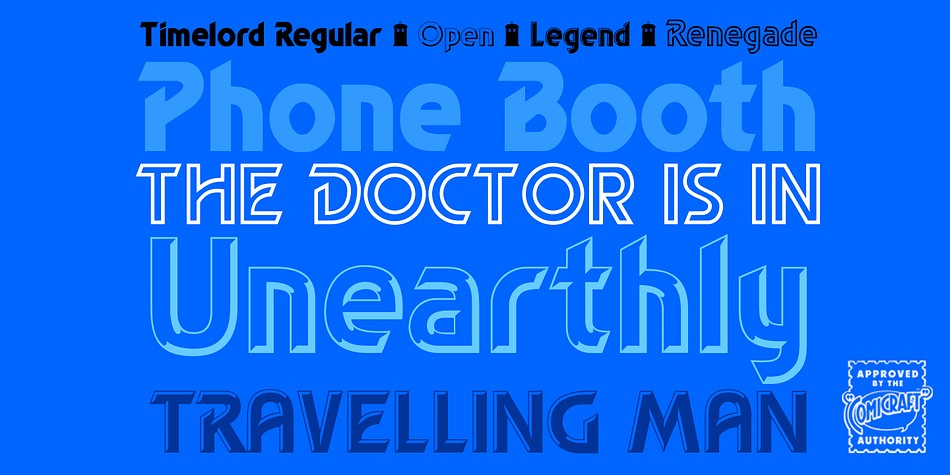
Designed by Richard Starkings and John Roshell, Timelord is a display sans font family. This typeface has four styles and was published by Comicraft.
VWORP! VWORP! This font will travel through the four dimensions of time and space to materialise on your hard drive. TIMELORD was created for Telos publishing’s line of DOCTOR WHO novellas.